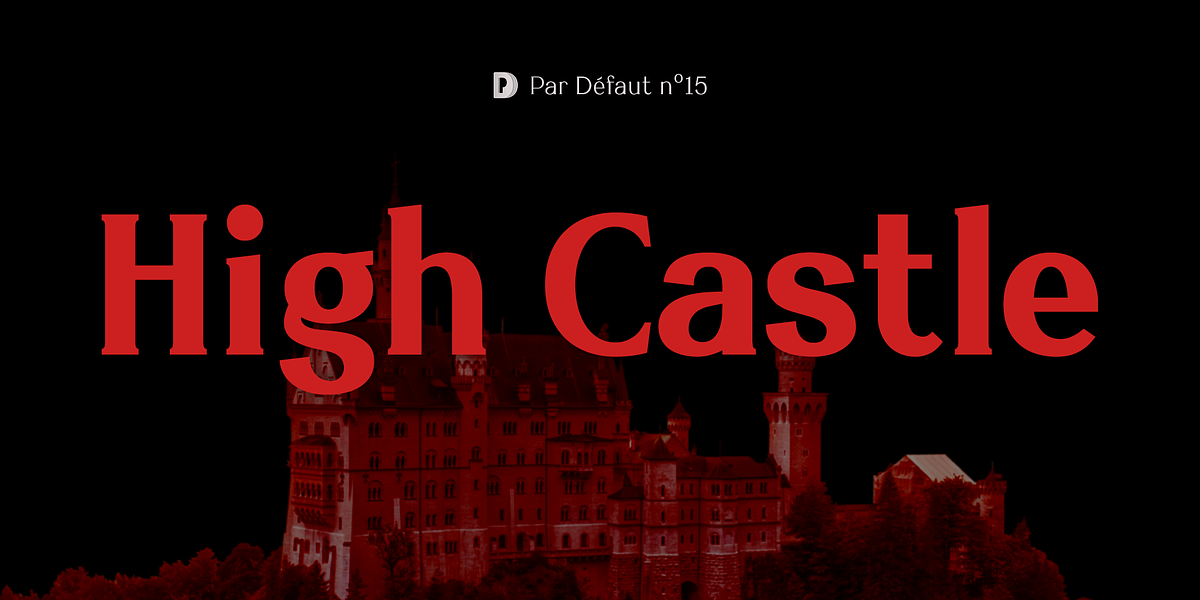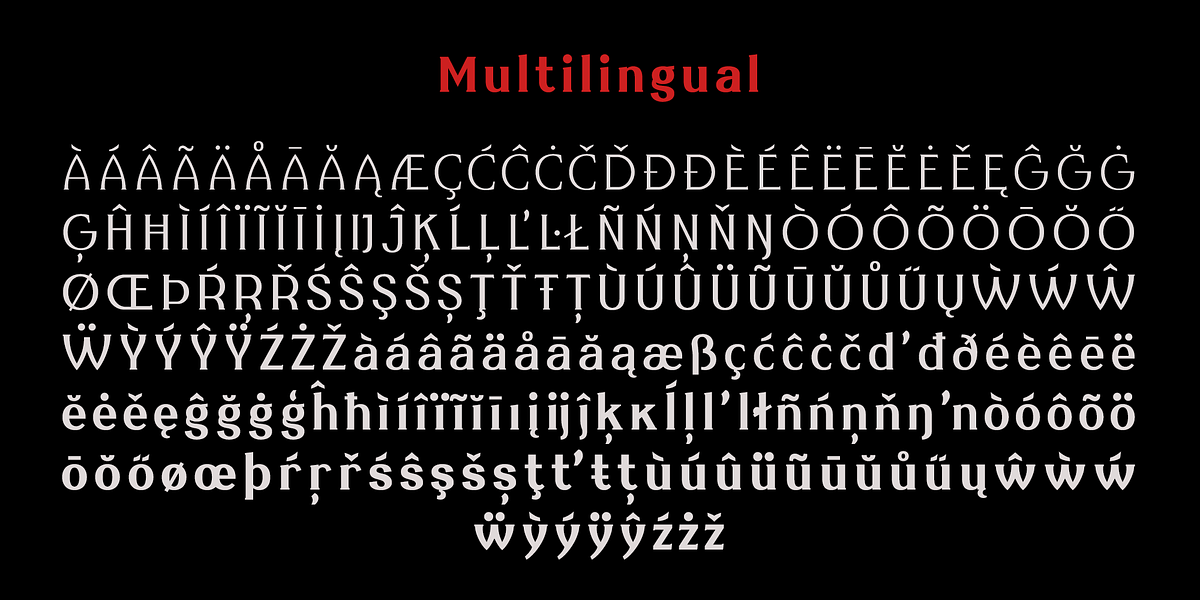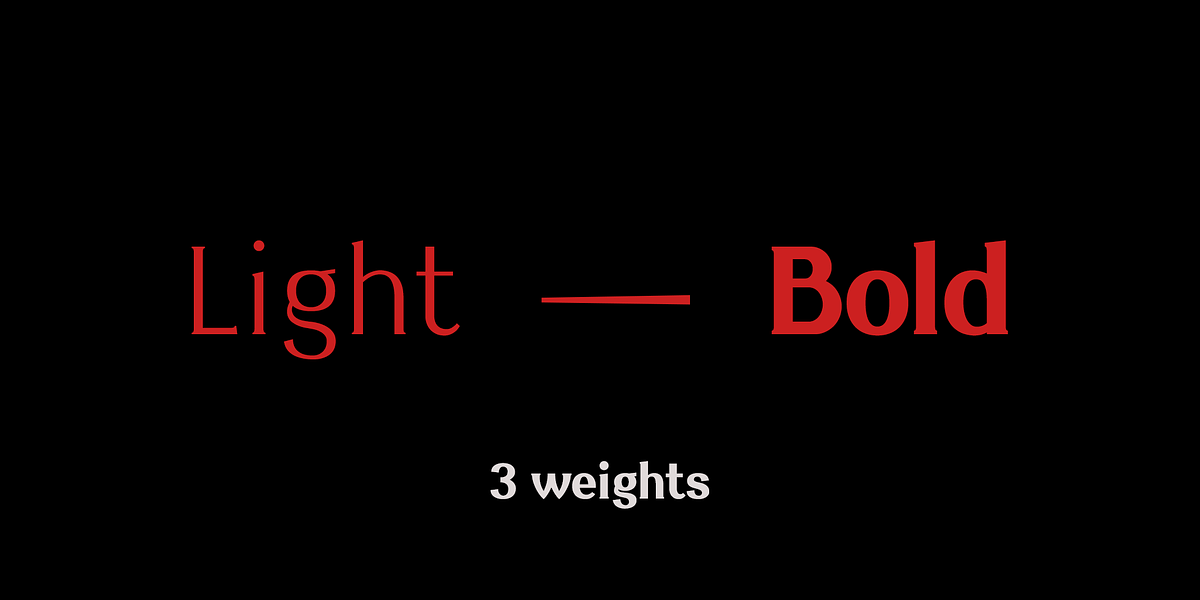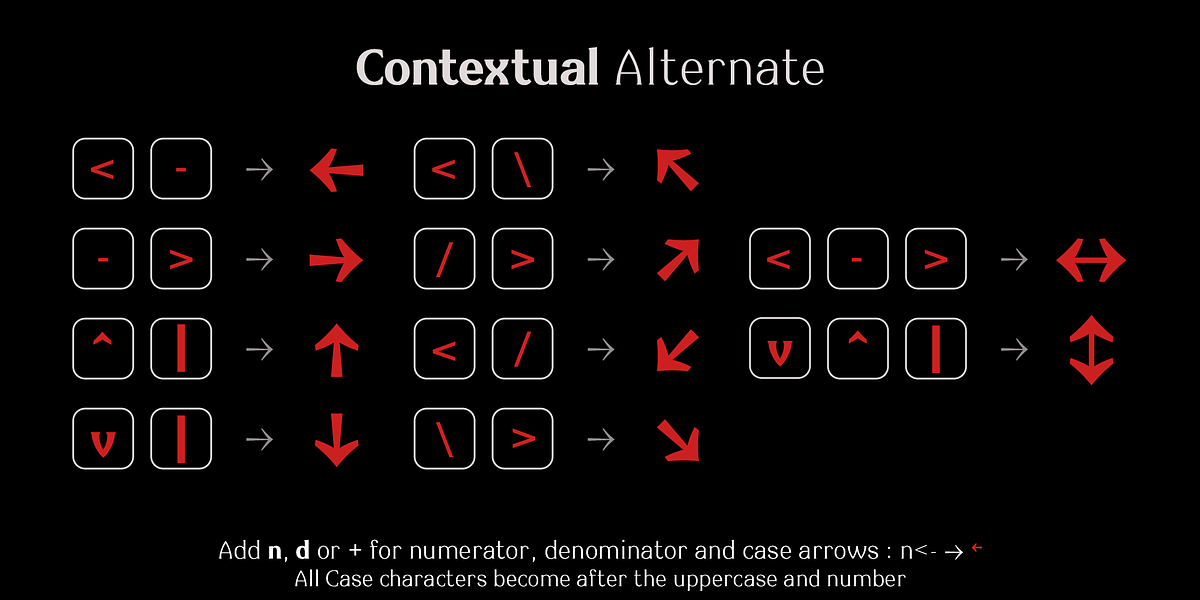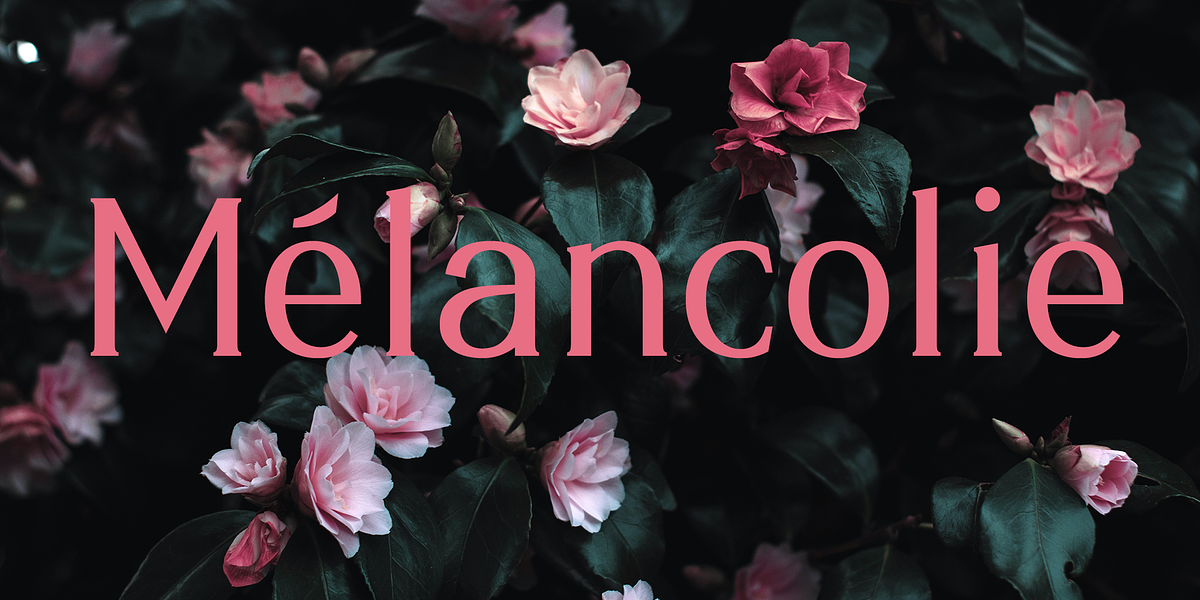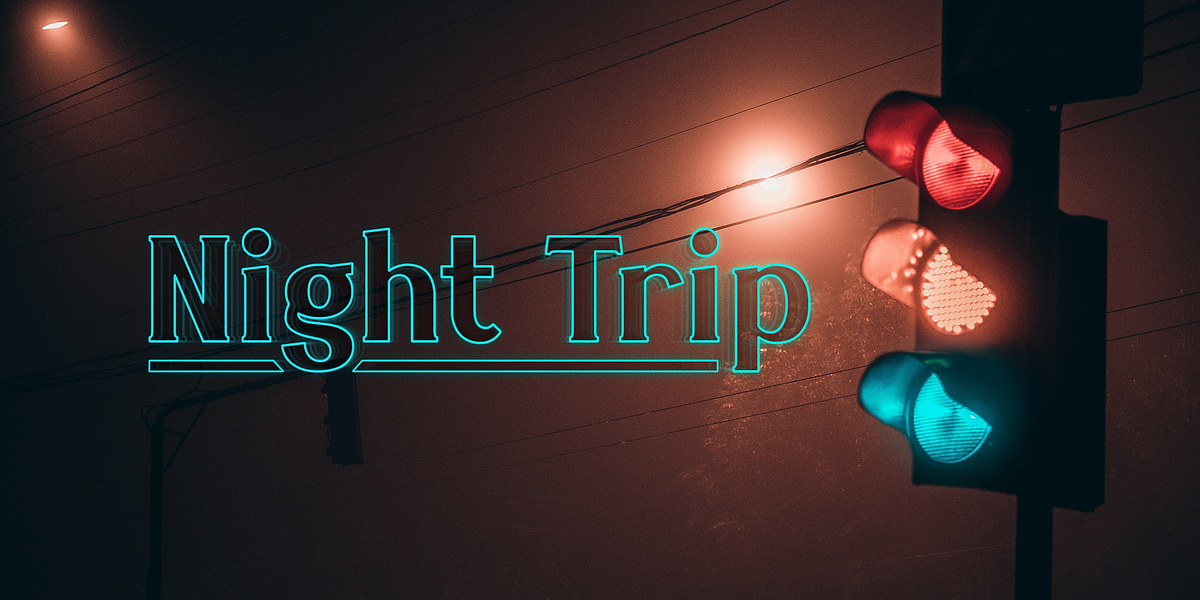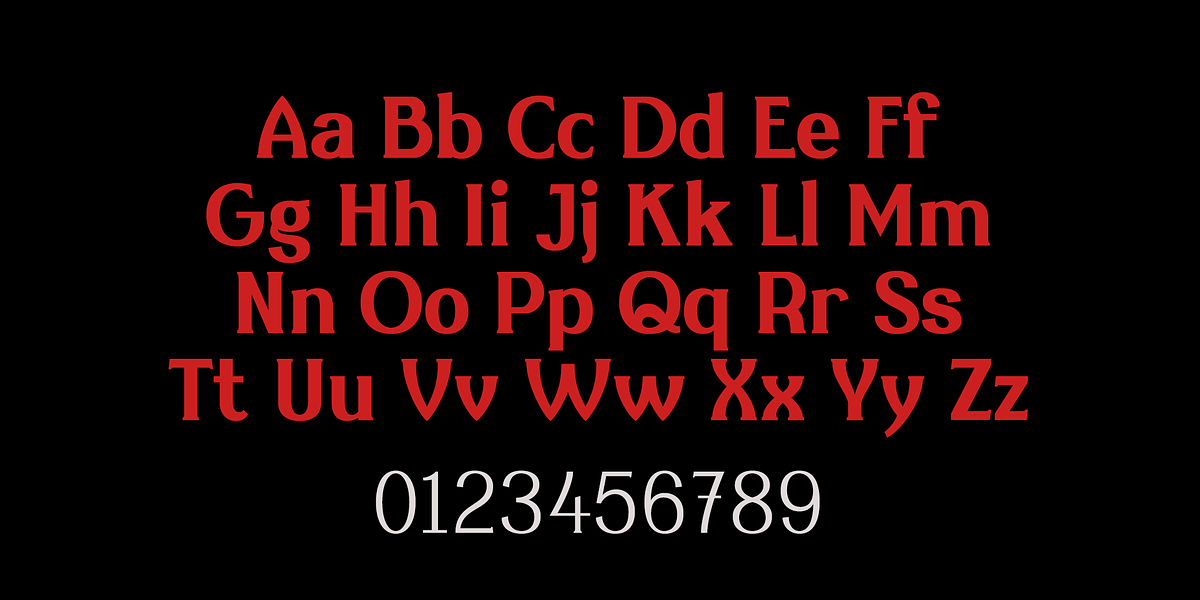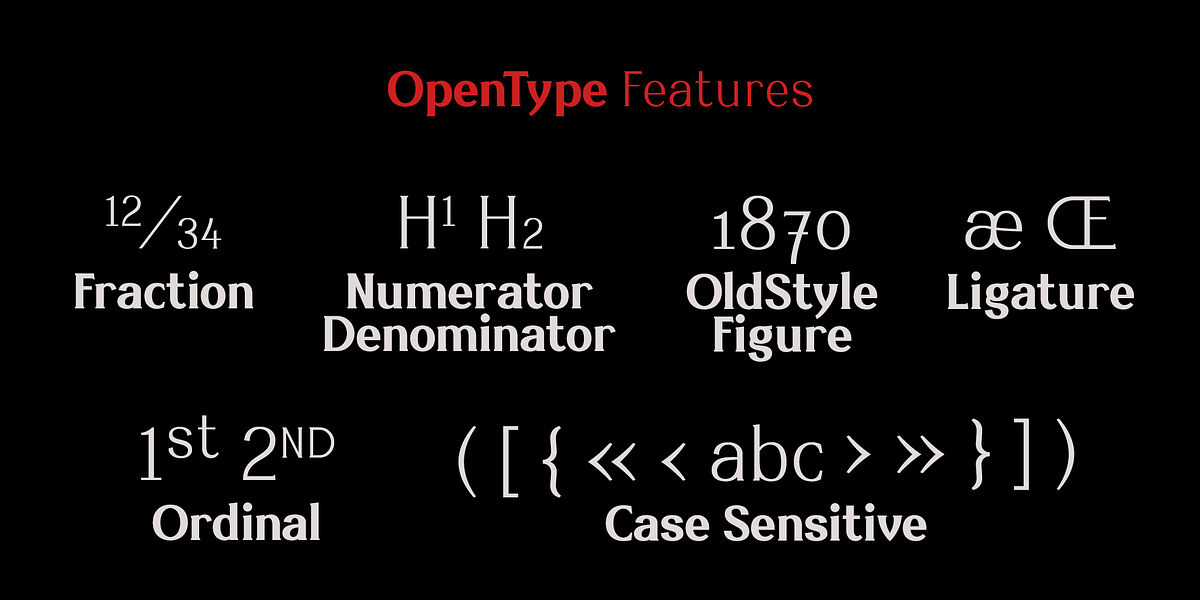
High Castle
High Castle is a serif font family that draws inspiration from baroque art and architecture. Its bold strokes and intricate details evoke a sense of history and grandeur. The font includes a wide range of weights (light, regular, bold), making it suitable for both body text and display purposes. High Castle's extensive multilingual support and OpenType features like ligatures, oldstyle figures, fractions, and contextual alternates enhance its versatility and readability.